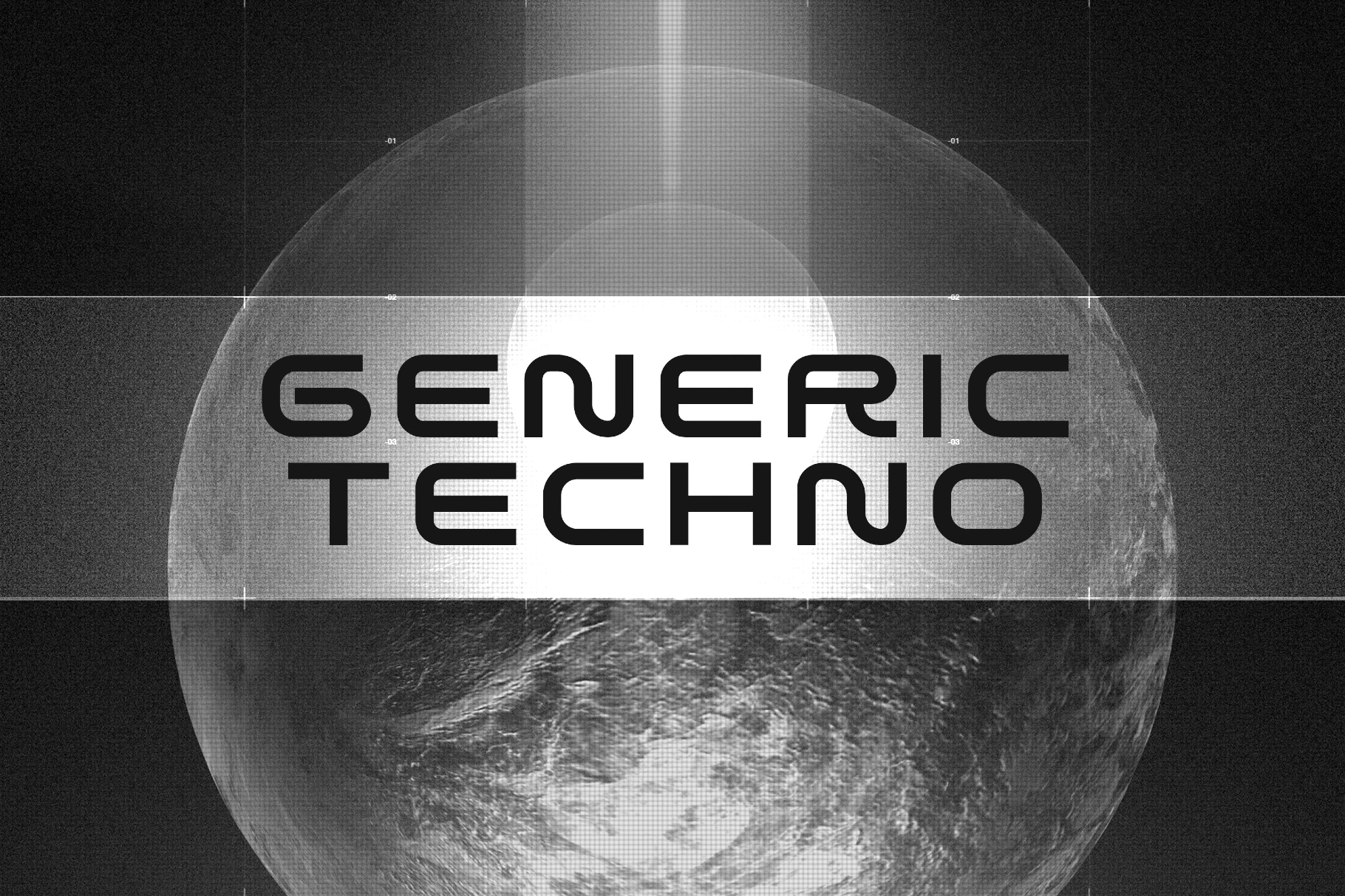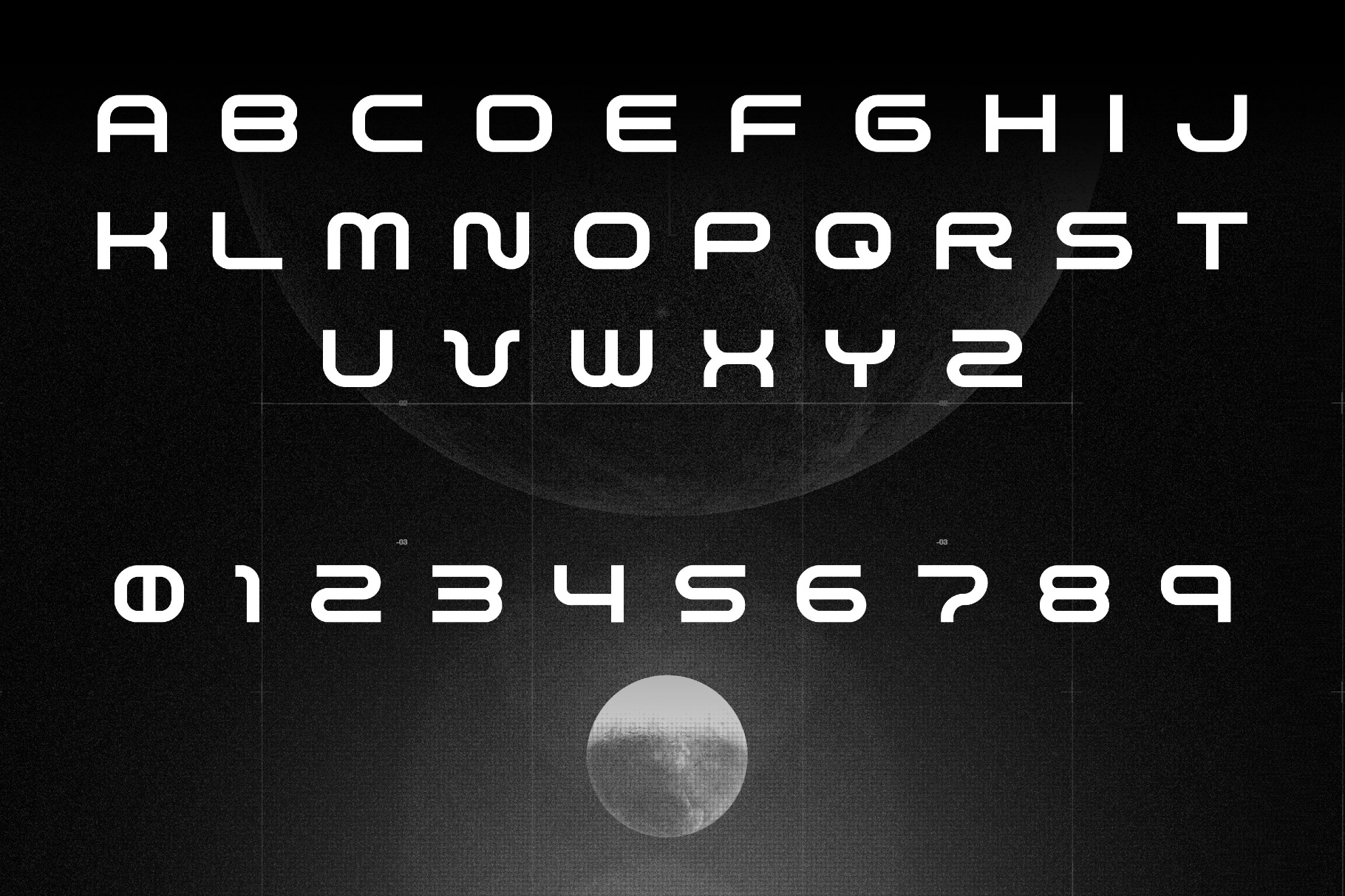
Generic Techno Font
GenericTechno
Wide geometric shapes in Generic Techno draw on concept-car graphics, arcade lettering, and glossy late-century tech branding, and give it a fast, polished look with just enough cinematic drama. The font is ideal for logo work, poster headlines, automotive branding, game titles, interface visuals, packaging, promo artwork, album covers, and motion graphics.